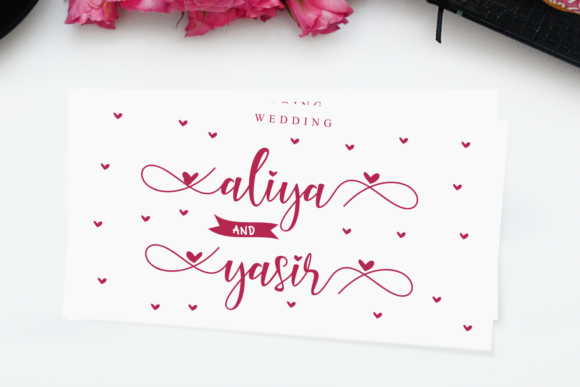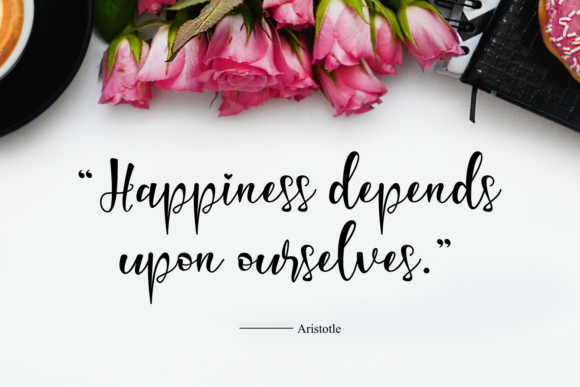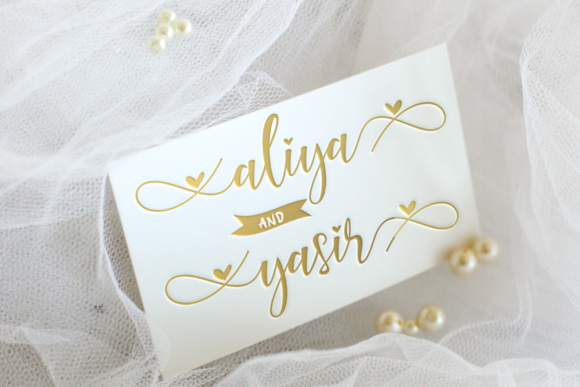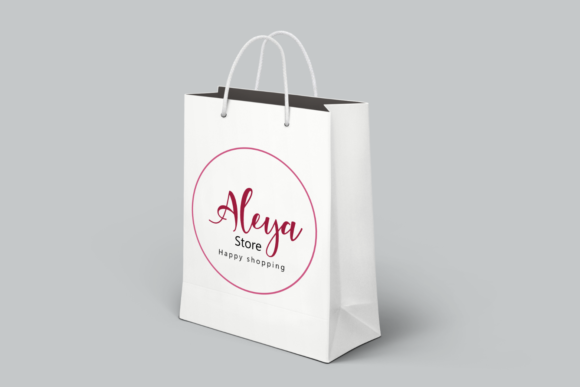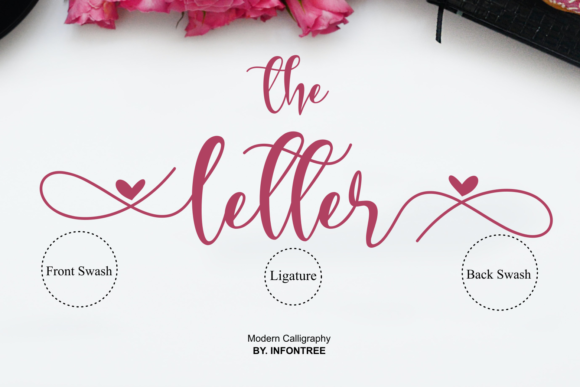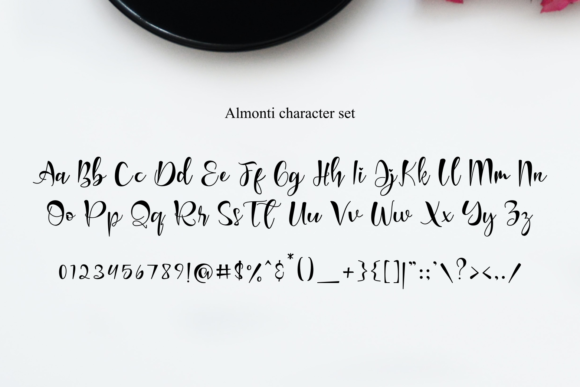
The Almonti Font: A Romantic Handwritten Treasure
Have you ever been in the middle of a design project, and suddenly, you’re stuck on finding the perfect font? I recall a particularly frustrating moment when I was working on a wedding invitation design. My client wanted something elegant, yet playful, and I was determined to deliver. After hours of scrolling through font libraries, I stumbled upon Almonti – a beautiful, romantic handwritten font that instantly captured the essence of the project. In this article, I’ll share my experience with Almonti, its features, and how to make the most of this stunning font.
An Honest Review of Almonti Font
What I Love About Almonti ✨
- 💕 Romantic and Elegant: Almonti exudes a sense of sophistication and romance, making it perfect for wedding-related designs, quotes, and greeting cards.
- ✅ PUA Encoded: The font’s PUA encoding allows easy access to glyphs and swashes, giving you more creative control.
- 🎨 Versatile: Almonti can be used for a variety of design projects, including logos, business cards, and social media graphics.
While Almonti is an excellent font, there are a few minor limitations to consider:
- ⚠️ Legibility at Small Sizes: Like many script fonts, Almonti may become less legible at very small font sizes. It’s best used at larger sizes (20px and above) for optimal readability.
- ⚠️ Limited Use for Body Text: Due to its elegant, cursive nature, Almonti is better suited for headings and titles rather than body text.
The Story Behind Almonti
Almonti was created with love and care by a talented type designer who aimed to craft a font that would evoke the romance and elegance of handwritten calligraphy. Inspired by classic scripts and modern calligraphy, Almonti is a beautiful blend of traditional and contemporary styles.
PUA (Private Use Area) encoding allows font creators to include additional glyphs, swashes, and stylistic alternates that can be accessed easily. This means you can unlock more creative possibilities with Almonti, making your designs more unique and visually appealing.
Q: Is Almonti suitable for body text?
While Almonti is an exquisite font, it’s better suited for headings, titles, and short paragraphs. For body text, consider using a more legible font to ensure readability.